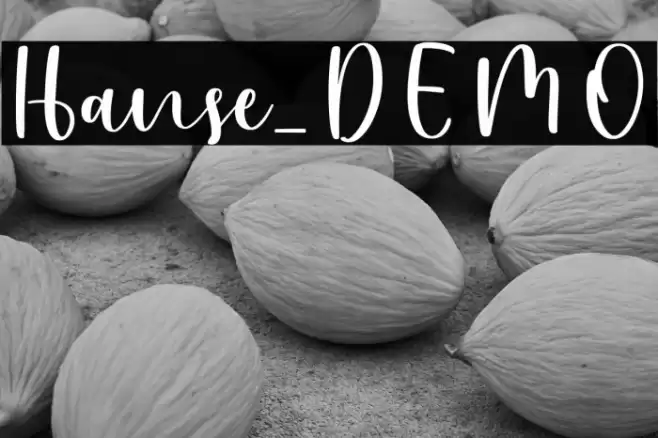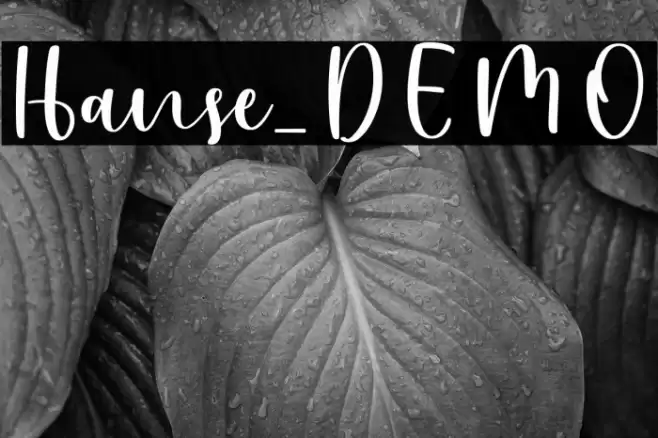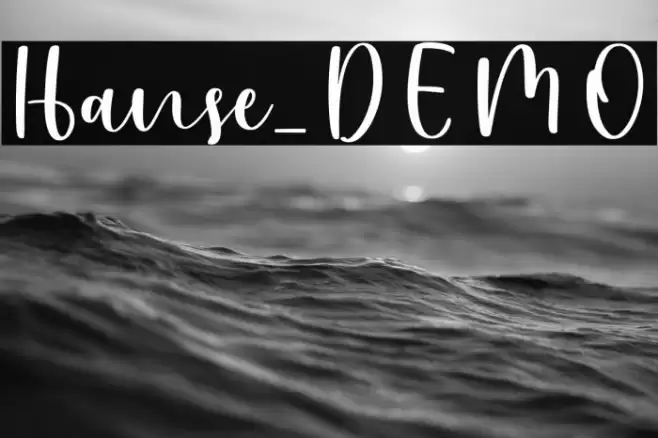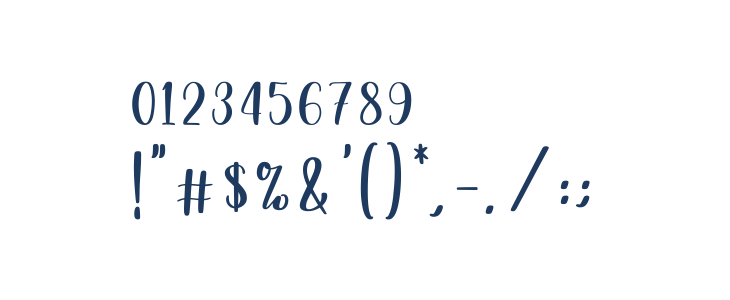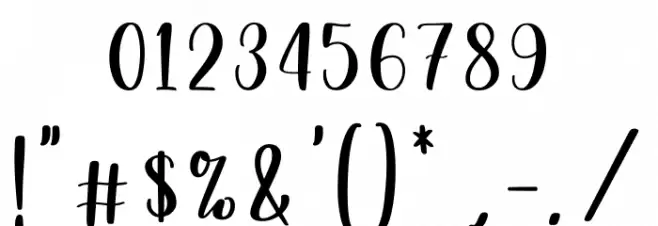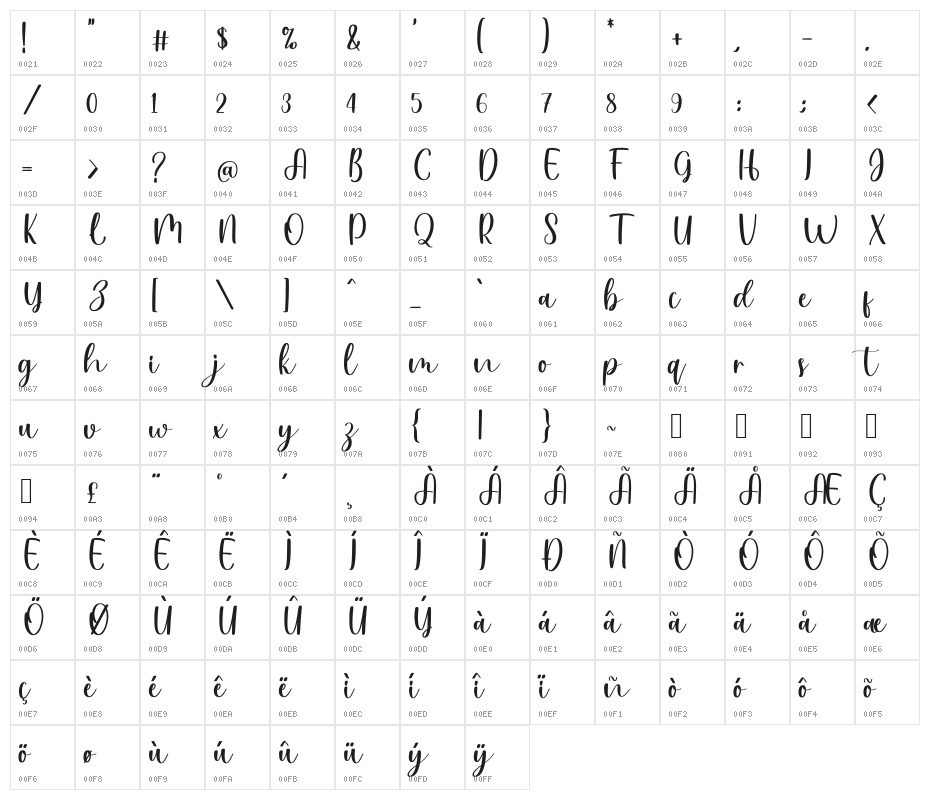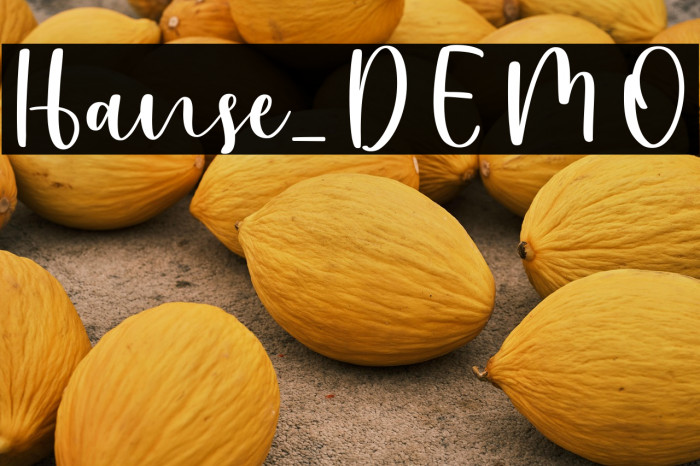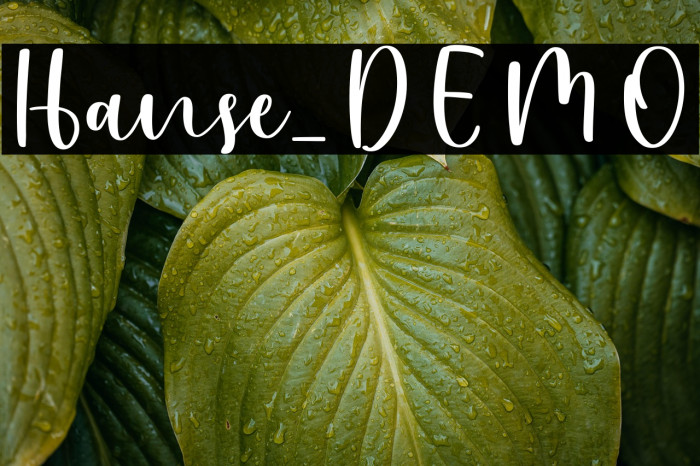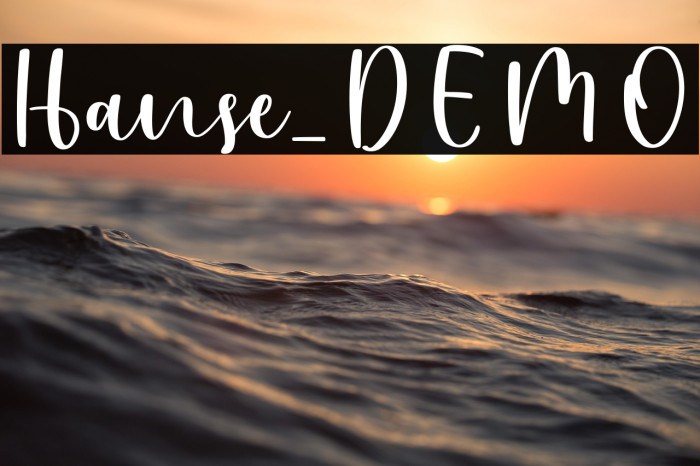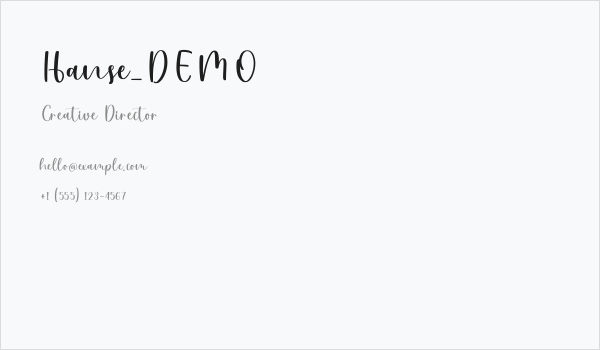
Hanse_DEMO Font
Hanse_DEMO Description
This font features a charming and elegant script style with a handwritten feel. The uppercase letters are bold and slightly condensed, with a playful loop in some characters, adding a touch of whimsy. The lowercase letters are more fluid and connected, creating a smooth and flowing appearance. The numerals are consistent with the script style, maintaining the same playful and elegant characteristics. Special characters are designed to match the overall aesthetic, ensuring a cohesive look across all text. This font is perfect for projects that require a personal and artistic touch.
A charming script font with a playful, handwritten style from Regular fonts.
- Proposed Projects: Ideal for wedding invitations, greeting cards, branding, and social media graphics.
- Use Case: Logos, Headlines, Invitations